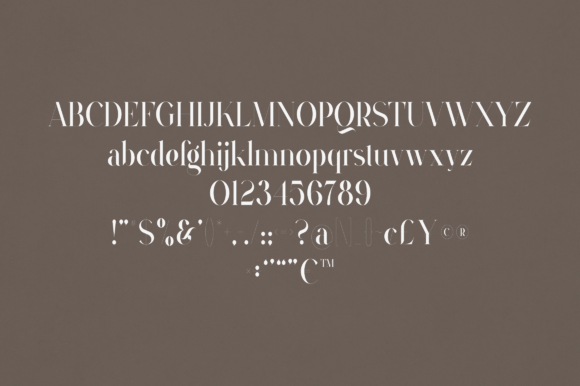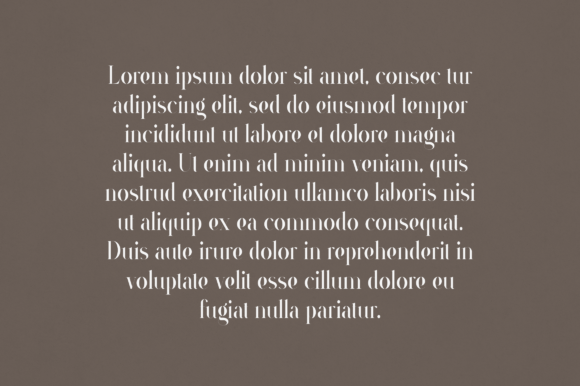
Baptisia Font: Elevate Your Design with Elegance and Versatility
In the world of typography, a font can make or break a design. If you’re a designer or crafter looking for a unique and stylish way to elevate your projects, look no further than Baptisia Font. This elegant and versatile font is perfect for a wide range of applications, from branding and logo design to product packaging and magazine headers.
What is Baptisia Font?
Baptisia Font is a beautifully crafted typeface that exudes sophistication and style. Its elegant curves and lines make it perfect for adding a touch of luxury to any design. Whether you’re working on a logo, headline, or plain text, Baptisia Font is sure to enchant your audience and leave a lasting impression.
Key Features of Baptisia Font
- Elegant and Versatile: Baptisia Font is designed to be versatile and adaptable, making it perfect for a wide range of design applications.
- Unique Typography: With its elegant curves and lines, Baptisia Font offers a unique and stylish way to elevate your typography.
- Perfect for Branding: Baptisia Font is ideal for branding projects, including logos, product packaging, and marketing materials.
- Magazine Headers and More: This font is also perfect for magazine headers, home-ware designs, and any other project that requires a touch of elegance and sophistication.
Why Choose Baptisia Font?
With so many fonts to choose from, why should you choose Baptisia Font? Here are just a few reasons why this font stands out from the rest:
- High-Quality Design: Baptisia Font is designed with high-quality craftsmanship in mind, ensuring that your typography looks professional and polished.
- Easy to Read: Despite its elegant and stylish design, Baptisia Font is easy to read, making it perfect for body text and headlines.
- Customizable: With Baptisia Font, you can easily customize your typography to fit your brand’s unique style and aesthetic.
Using Baptisia Font in Your Design
So, how can you use Baptisia Font in your design? Here are a few ideas to get you started:
- Logo Design: Use Baptisia Font to create a unique and memorable logo that sets your brand apart.
- Branding and Marketing: Use Baptisia Font in your branding and marketing materials, including business cards, brochures, and social media graphics.
- Product Packaging: Add a touch of elegance and sophistication to your product packaging with Baptisia Font.
- Magazine Headers: Use Baptisia Font to create eye-catching magazine headers that grab your readers’ attention.
Tips for Getting the Most Out of Baptisia Font
Here are a few tips for getting the most out of Baptisia Font:
- Experiment with Different Sizes: Baptisia Font looks great in a variety of sizes, from small body text to large headlines.
- Play with Color: Baptisia Font looks great in a range of colors, from bold and bright to subtle and muted.
- Pair with Other Fonts: Baptisia Font pairs well with a range of other fonts, so don’t be afraid to experiment with different combinations.
In conclusion, Baptisia Font is a versatile and elegant font that’s perfect for designers and crafters looking to elevate their typography. With its unique curves and lines, high-quality design, and ease of use, Baptisia Font is sure to enchant every logo, branding, headline, or plain text. Whether you’re working on a branding project, product packaging, or magazine headers, Baptisia Font is the perfect choice.
Get Ready to Elevate Your Design with Baptisia Font